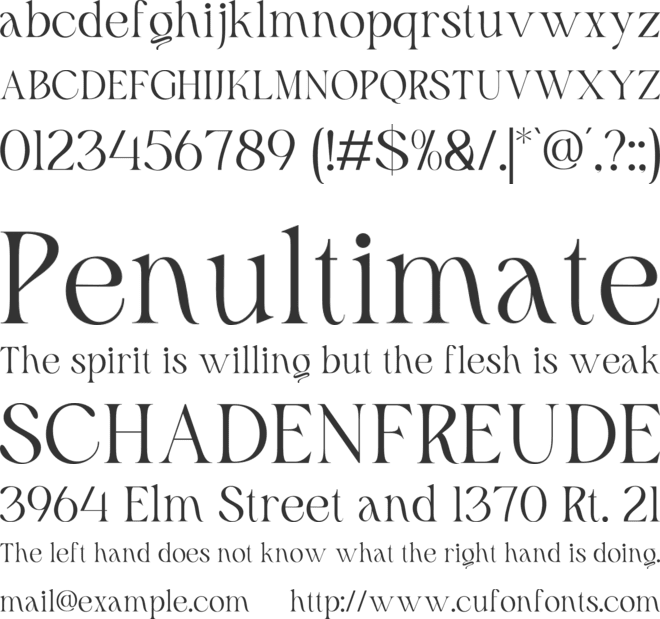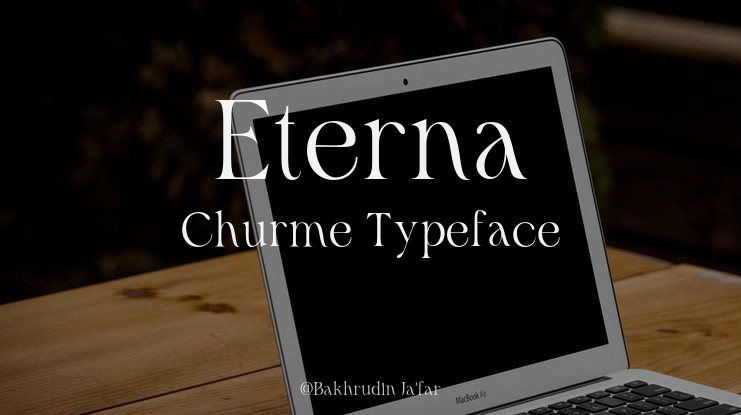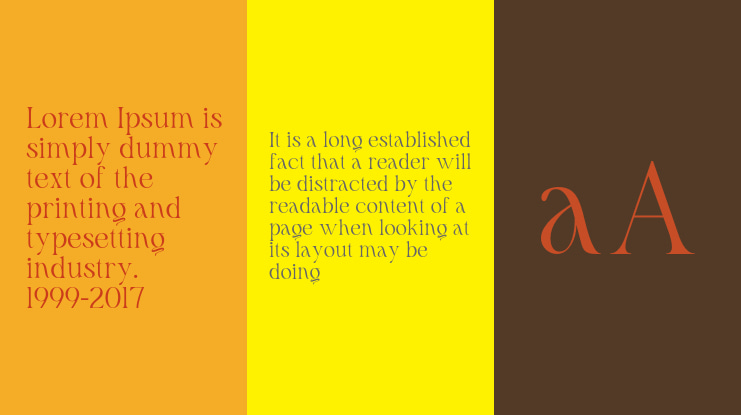
Eterna Churme Font Family
Eterna Churme is a luxury serif display font crafted with timeless elegance and modern sophistication. Its refined letterforms, graceful curves, and stylish alternates bring a high end aesthetic to any design. With premium kerning and versatile features, this font ensures flawless readability while adding a chic ornamental touch. Perfect for luxury branding, wedding invitations, fashion editorials, packaging, and social media, Eterna Churme will elevate your projects with its iconic elegance. Try it now and give your designs a refined, premium look!